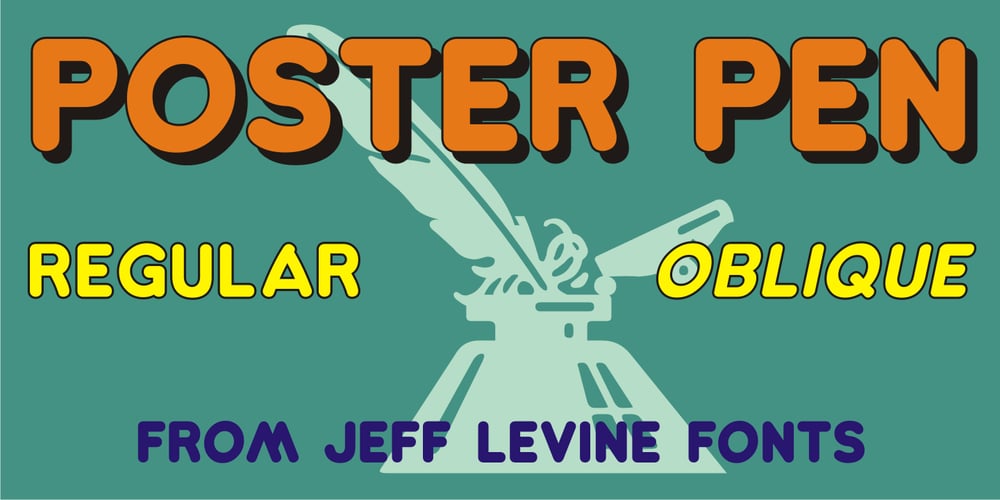
Poster Pen JNL
Poster Pen JNL font
Poster Pen JNL Font Family was designed by Jeff Levine and published by Jeff Levine. Poster Pen JNL contains 2 styles and family package options. The bold round point pen lettering on the cover of the 1934 sheet music for “New England in the Rain” was the model and inspiration for Poster Pen JNL, which is available in both regular and oblique versions.